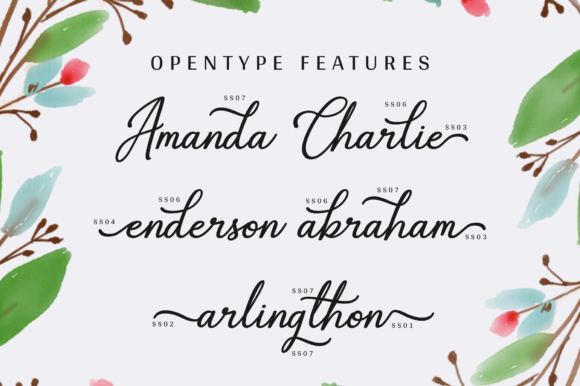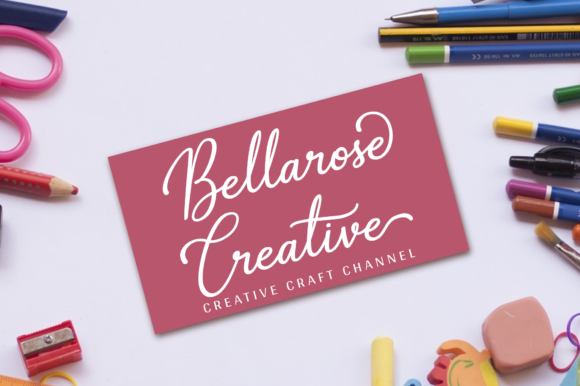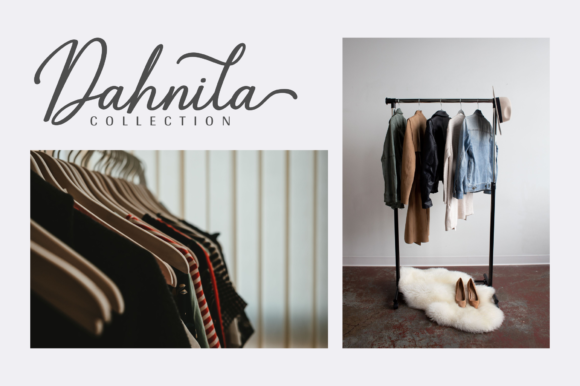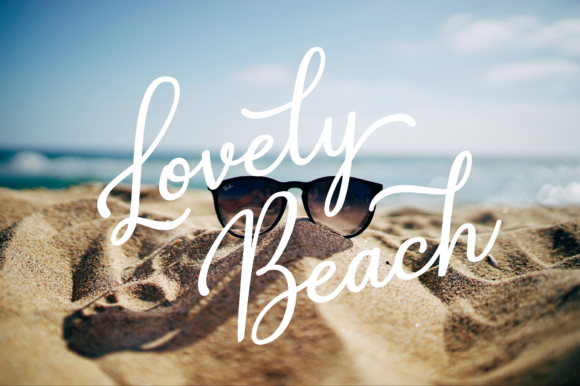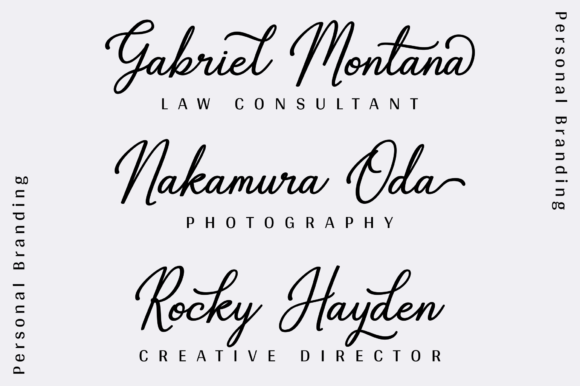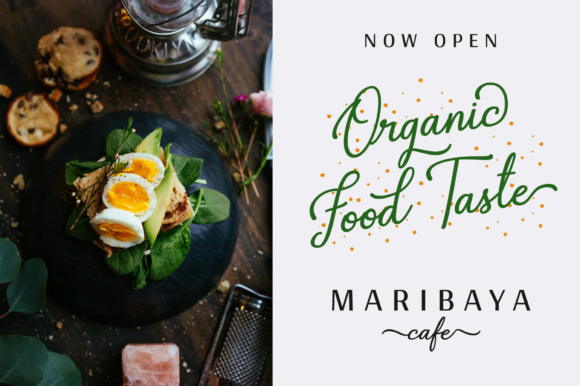
Introduction to Gabryna Font
Have you ever found yourself in the midst of a creative project, struggling to convey the perfect message through your design? The words just aren’t flowing, and you can’t seem to find the right font to match your vision. That’s where the beauty of Gabryna Font comes in – a stunning handwritten font that will transport your design to new heights.
With its elegant and sophisticated feel, inspired by classic calligraphy, Gabryna Font is a game-changer for designers looking to elevate their creative projects. Whether you’re working on a logo, brochure, or website, this high-quality font will provide the perfect finishing touch, adding a touch of sophistication and class to your design.
Key Features of Gabryna Font
- Comprises a total of 1 font style, offering a unique and distinctive look for your creative project.
Honest Review: Gabryna Font
I recently stumbled upon the Gabryna Font and was impressed by its potential. As a designer, I’m always on the lookout for high-quality design resources that can elevate my creative projects.
What works well for me is the Gabryna Font‘s unique blend of elegance and playfulness. The font is perfect for creating visually appealing titles and headings, and its transparent background makes it easy to use in various design scenarios.
However, I do have to mention a few limitations: ⚠️
- The font may not be suitable for very small text sizes
- The Gabryna Font is not a full-featured font family, so be prepared to supplement with other fonts if needed
Overall, I’m quite impressed with the Gabryna Font, and I think it’s a great addition to any designer’s arsenal. With a little creativity, this font can help take your designs to the next level. ✨
Gabryna Font is a versatile design resource that can be used for a variety of creative projects, including graphic design, digital art, and typography. Its high-quality design makes it an ideal choice for business cards, logos, and branding materials.